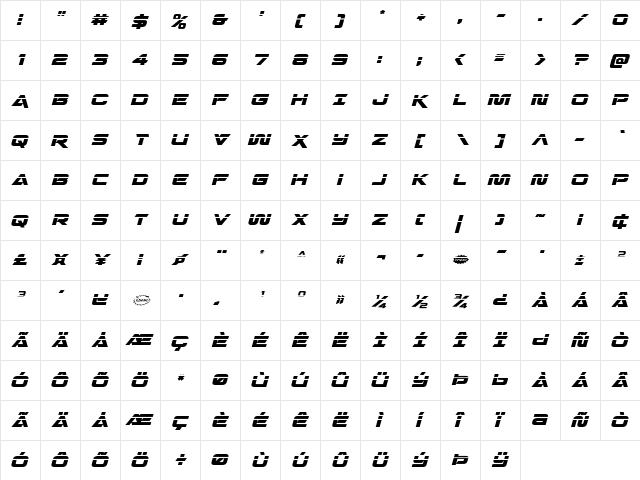
Quark Storm Laser Italic Italic
Design Context for Quark Storm Laser Italic Typeface
Quark Storm Laser Italic is a composed and adaptable typeface that performs quietly and consistently across a wide range of design contexts. The dynamic lean of this cut emphasises speed and emphasis in any layout.
Pro Tip: Use Quark Storm Laser Italic for emphasis, pull quotes, and subheadings where its slanted energy can add rhythm to the layout.